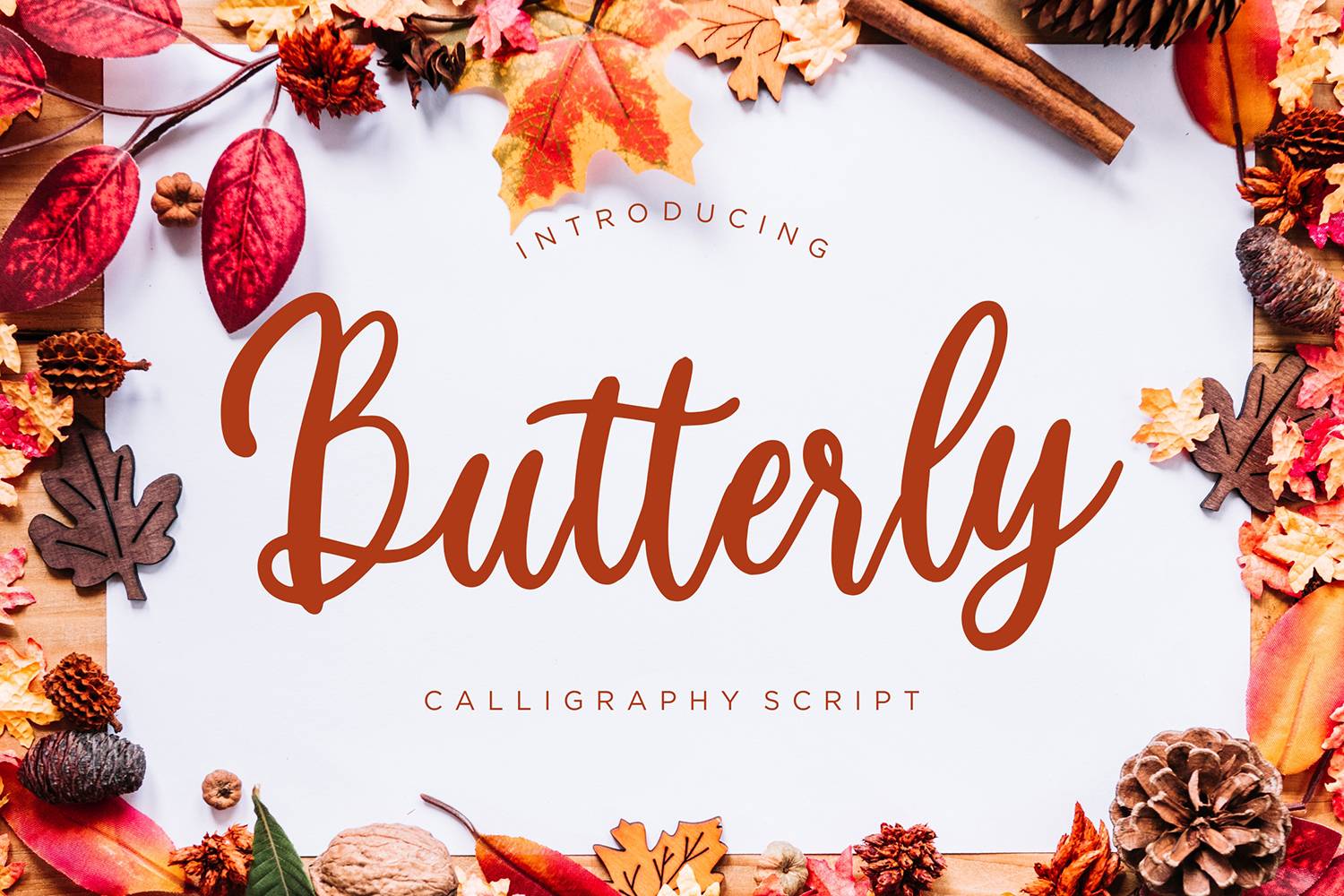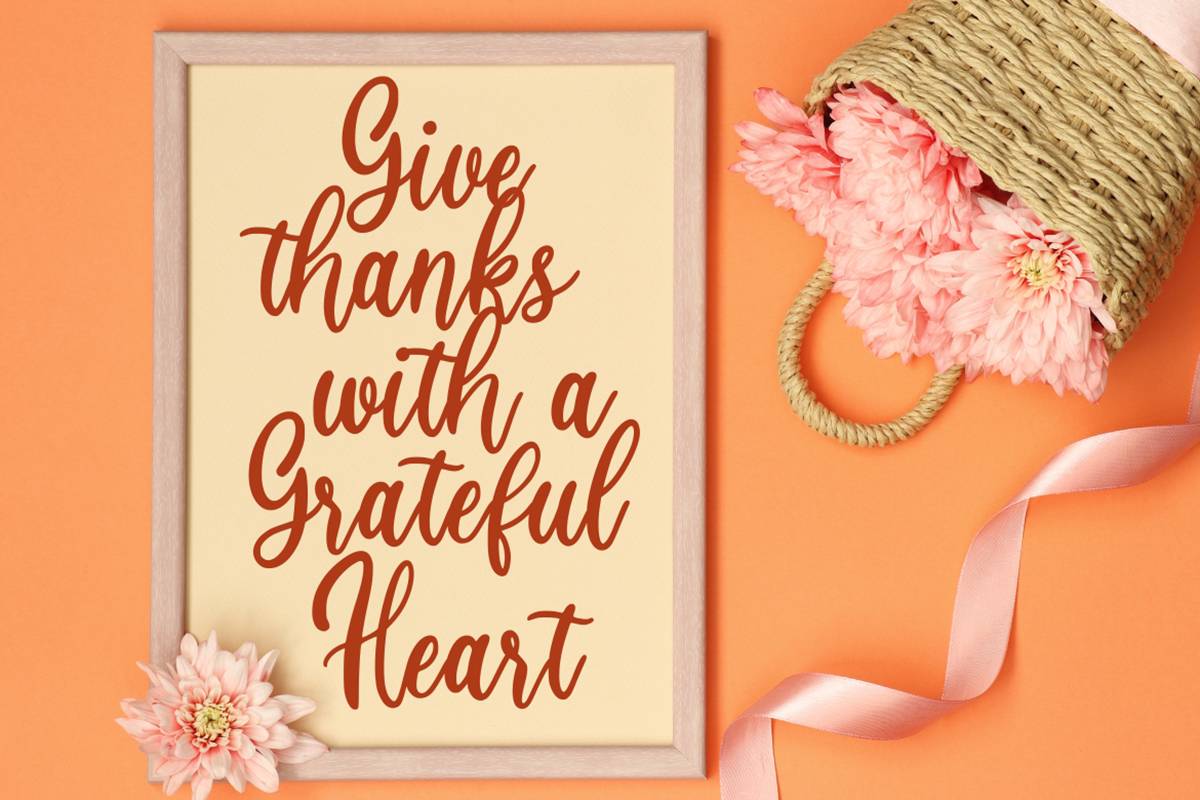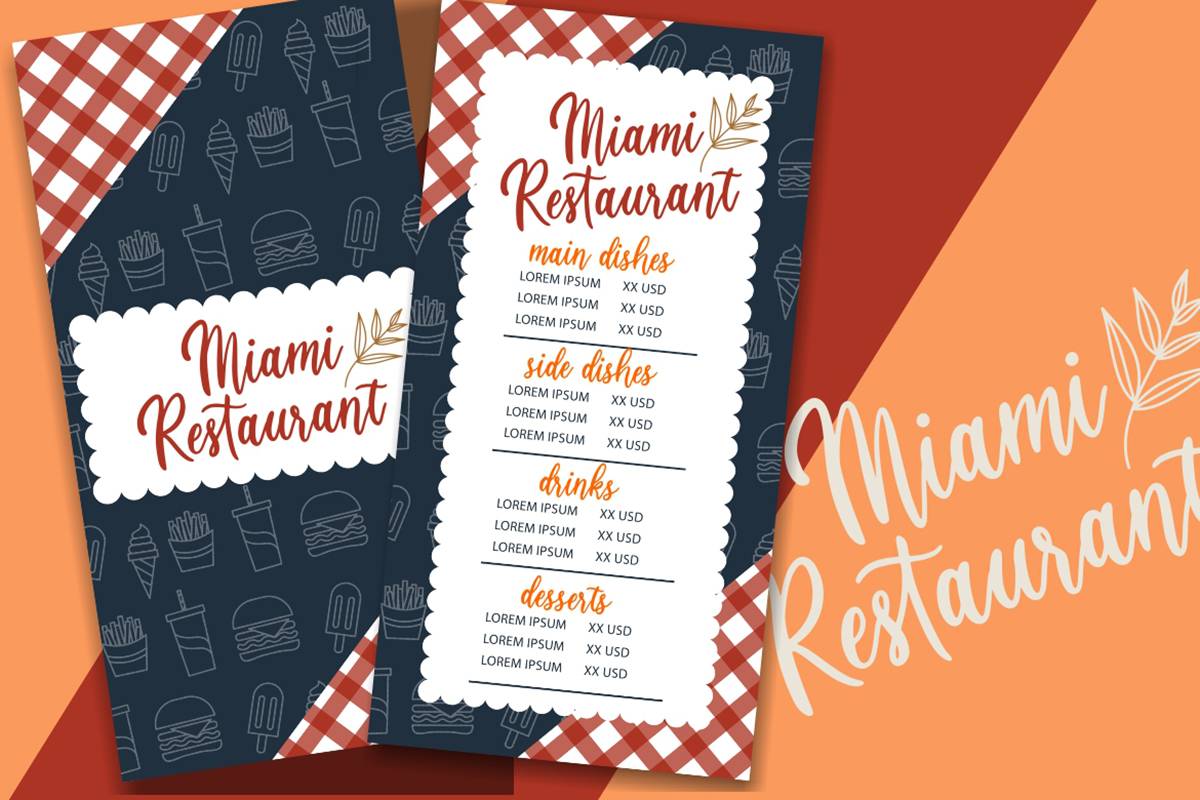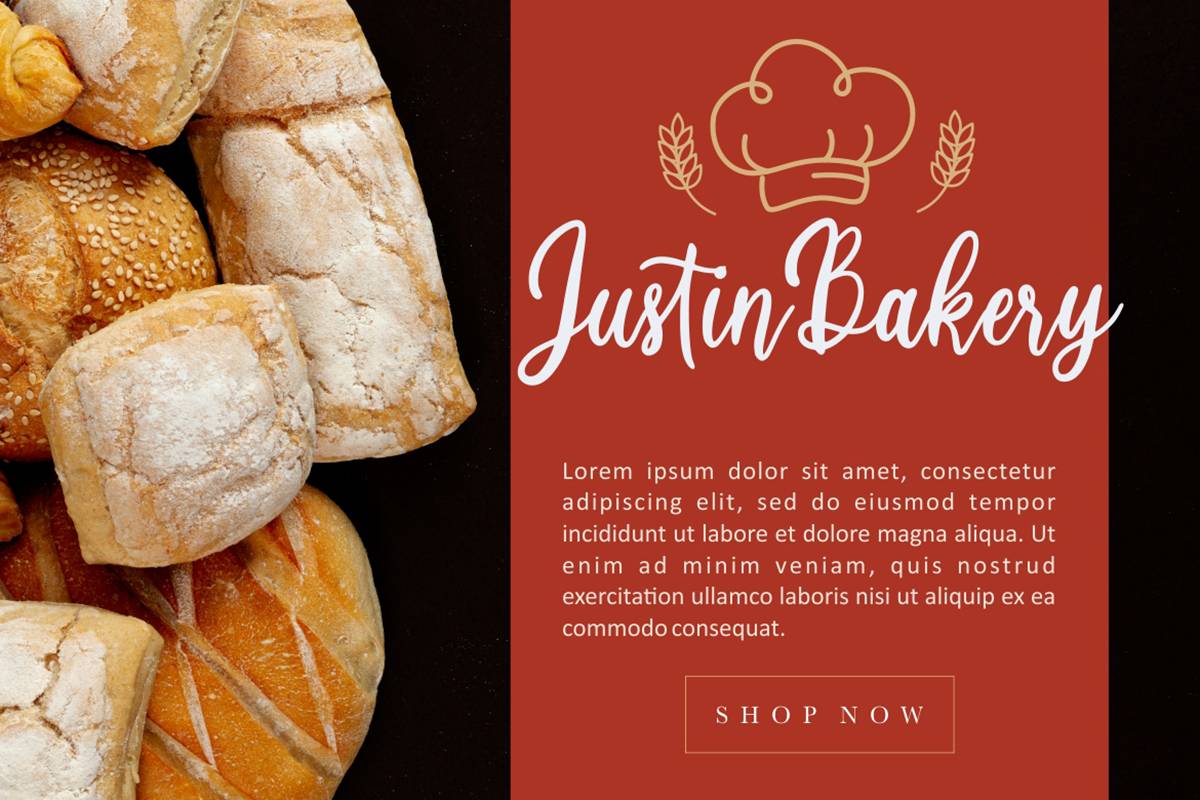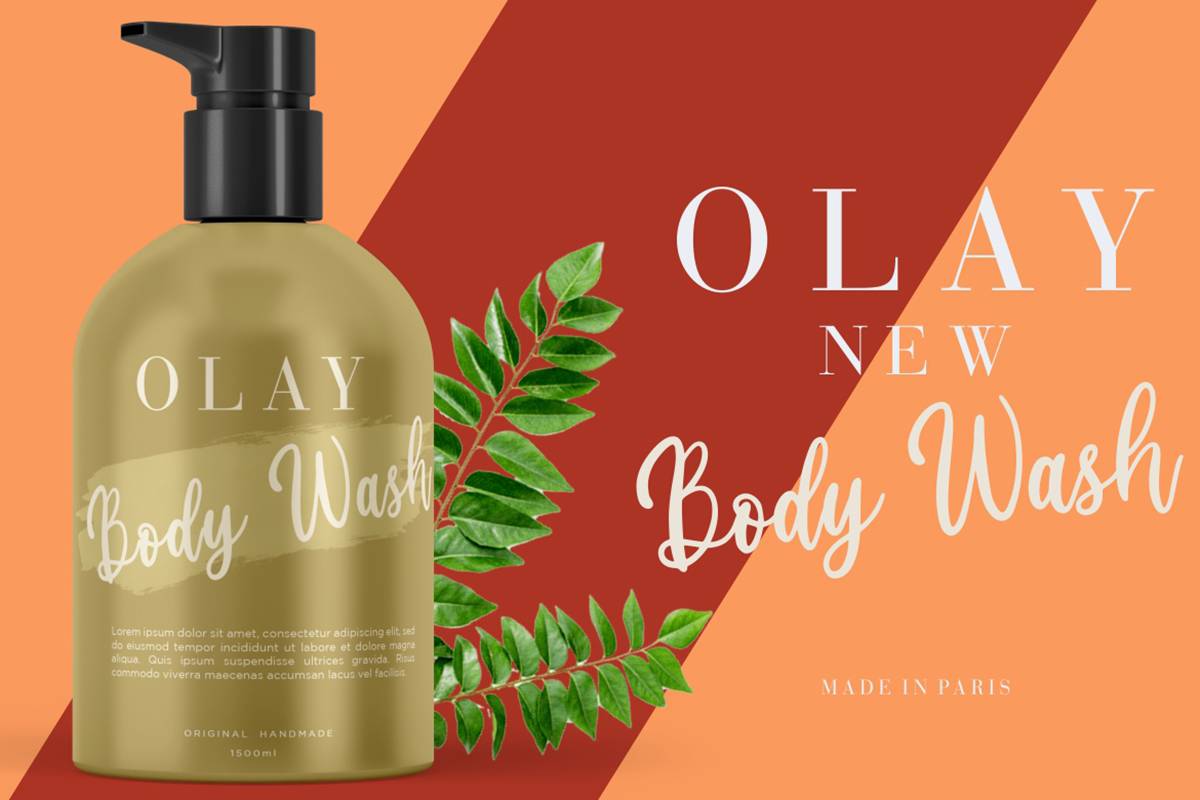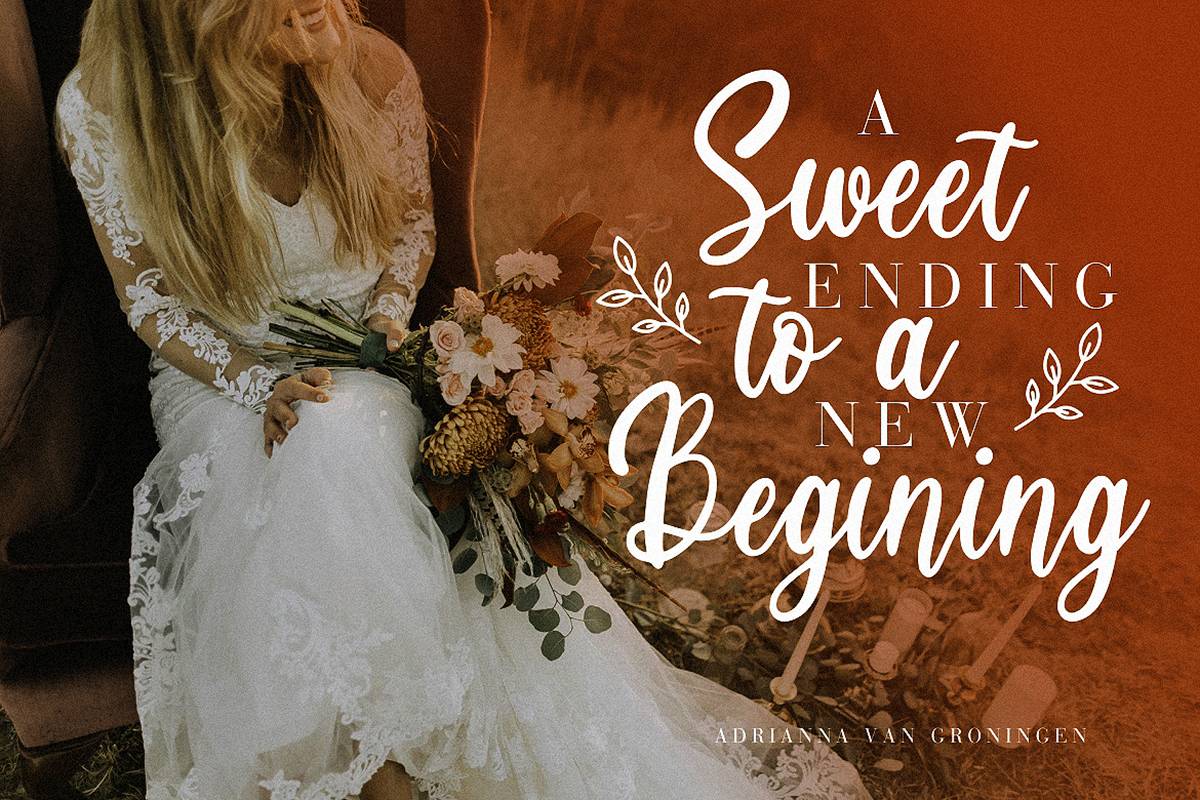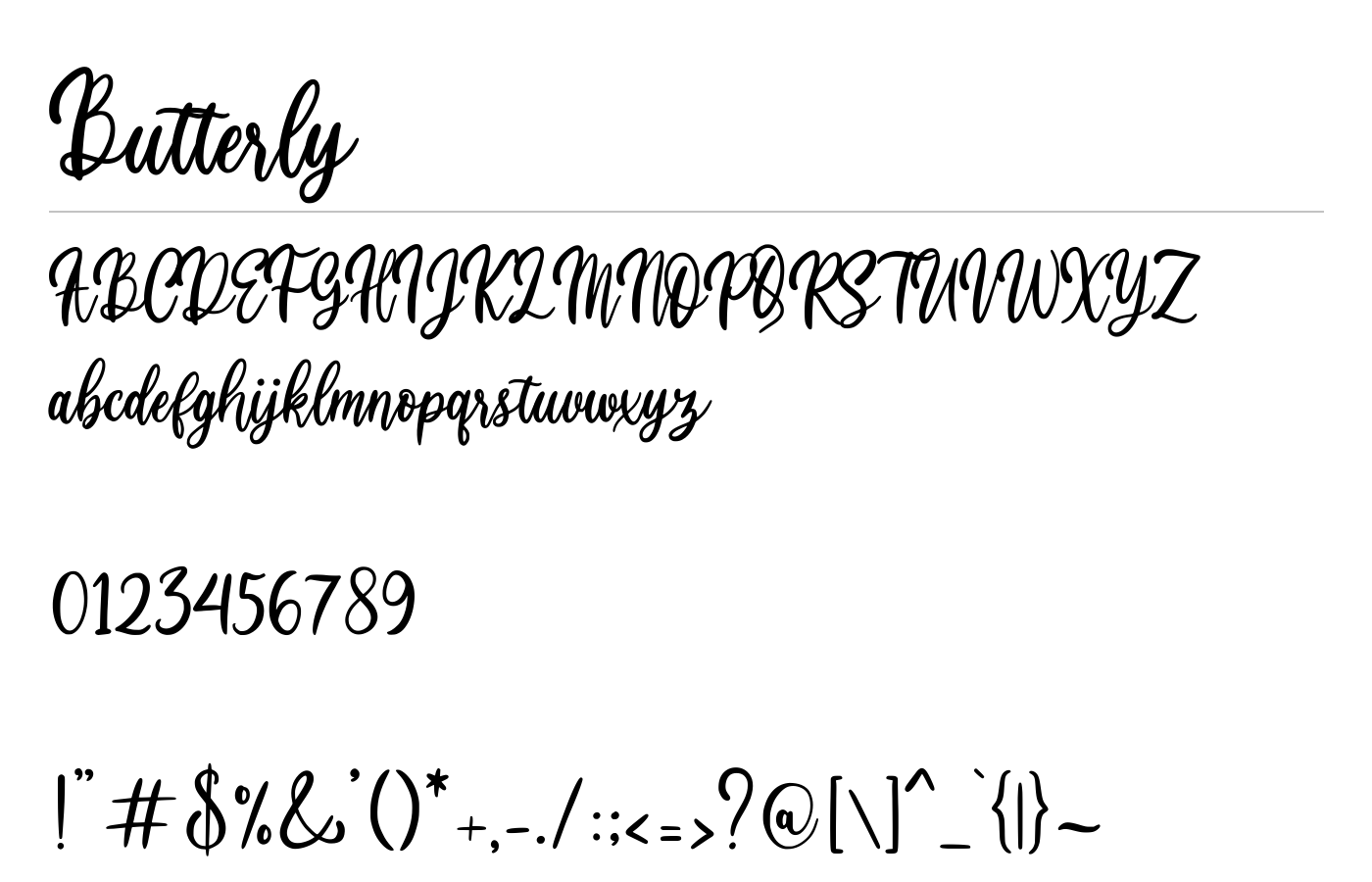
Butterly Font is a charming script typeface with a casual yet elegant feel, characterized by its smooth, flowing strokes and moderate contrast. Its rounded, slightly playful letterforms with distinctive loops and curls make it perfect for branding, invitations, and feminine or creative projects that seek a personal and approachable touch. This font works well in headlines, logos, and decorative text, adding warmth and character to any design.
Butterly Font
About Butterly Font